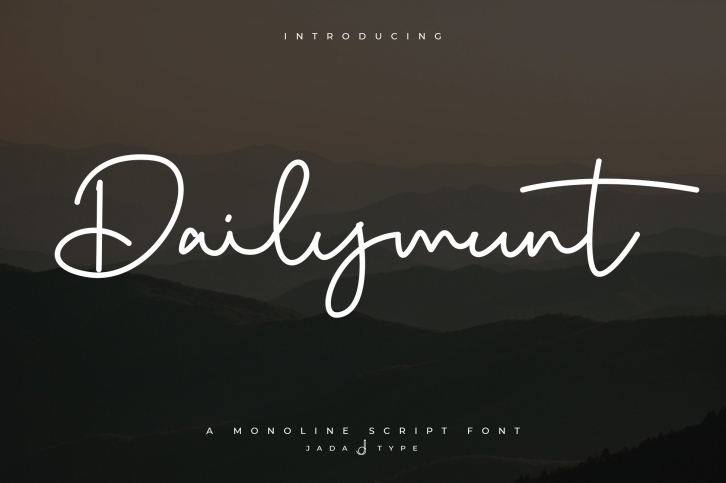
Dailymunt is a beautiful font that was designed by jadatype2. It's a great choice for designers and creatives who need such a font. It was released on January 9, 2021 and the file size is 16.62 MB. Dailymunt may give a more youthful, expressive and casual look to your project. It is a very beautiful, refined, elegant, and high-quality font.